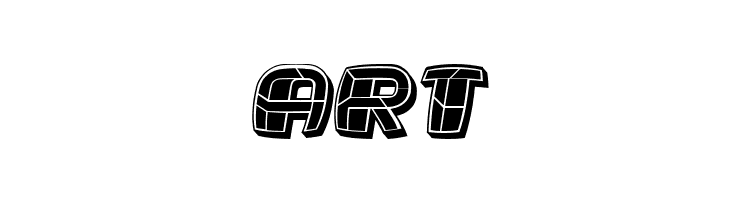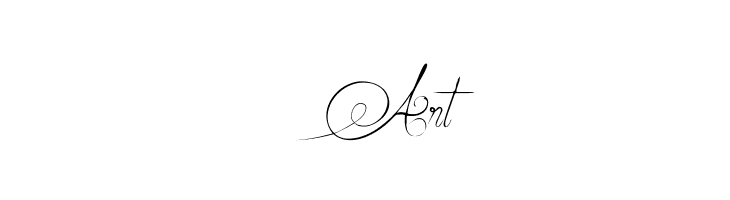
• Alexana
A charming and elegant script font with fluid, connected letterforms.
• Alexander Filled Regular
A bold, three-dimensional font with a vintage, shadowed style.
• Alexander Lettering
A delicate, flowing script font with elegant curves and a handwritten style.
• Alexander Lettering PERSONAL Regular
A delicate, elegant handwritten font with flowing, connected letterforms.
• Alexander Regular
A bold, three-dimensional font with strong shadow effects and a decorative style.
• Alexander Reguler Demo
A graceful script font with flowing, connected strokes and decorative flourishes.
• ALEXANDRA
A bold, futuristic font with geometric shapes and sharp angles.
• Alexandra Italic
A bold, three-dimensional italic font with a modern, geometric style.
• Alexandra Magnolia
A cursive, handwritten-style font with elegant, flowing strokes.
• Alexandra Orleans
An elegant script font with intricate, flowing lines and decorative flourishes.